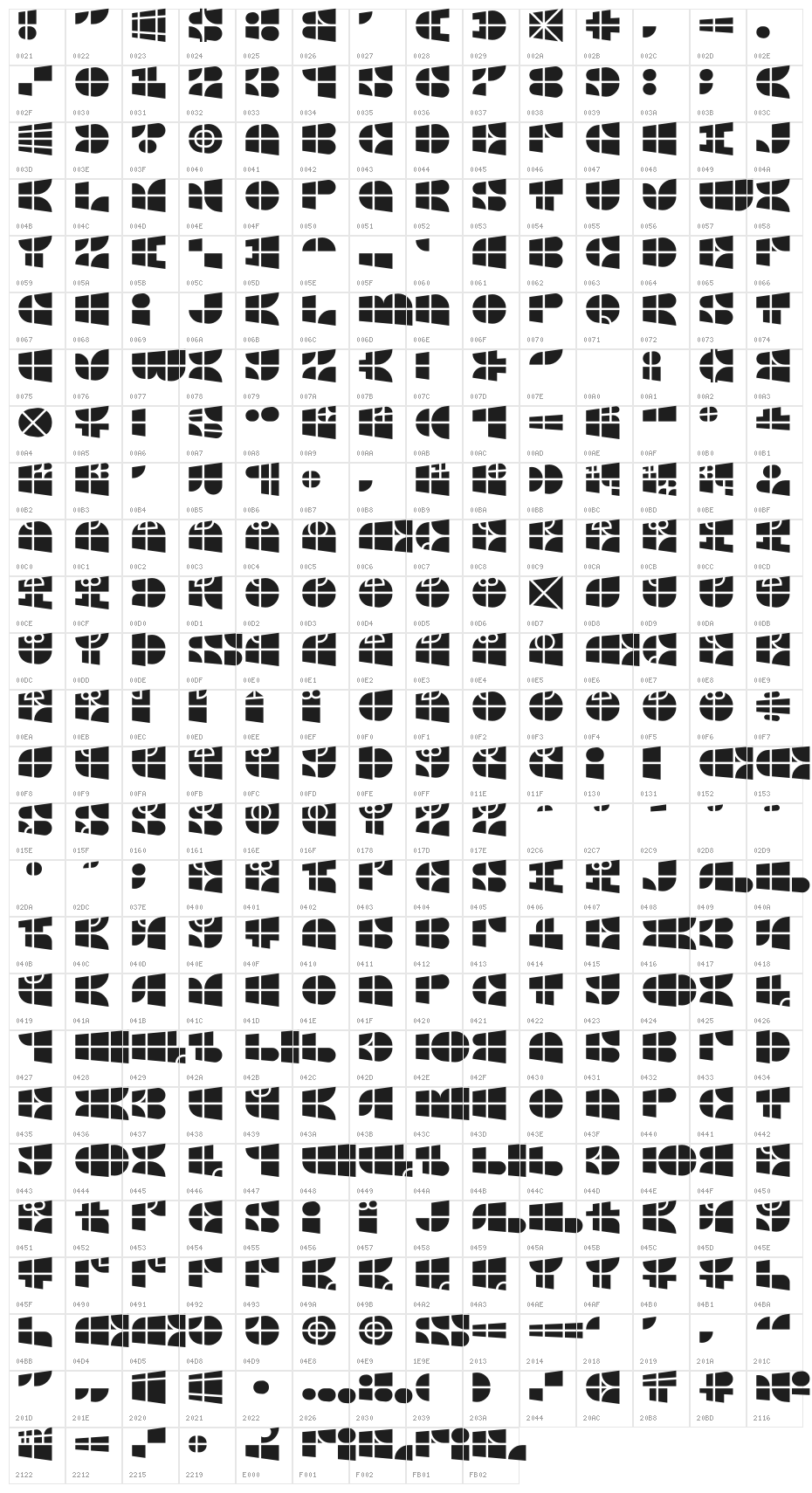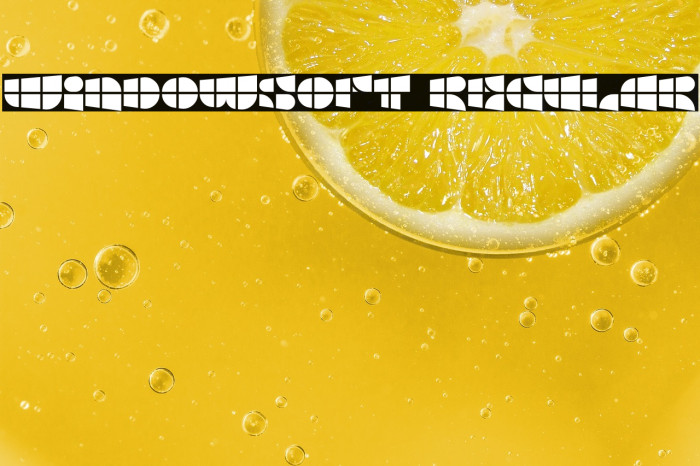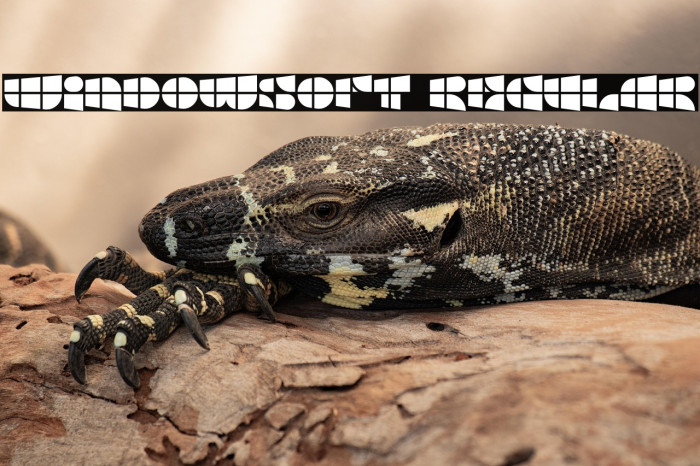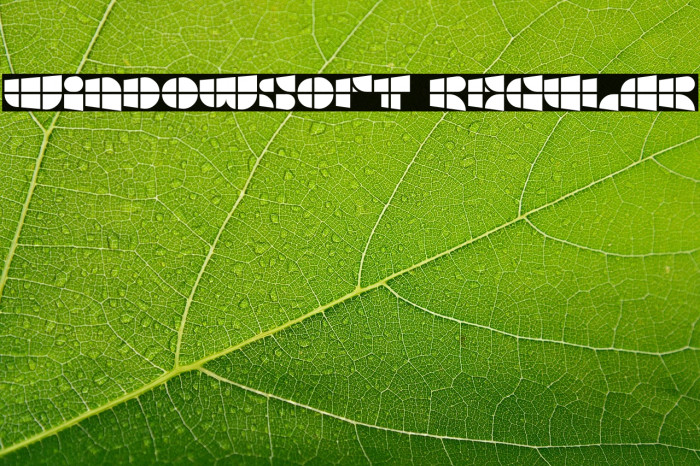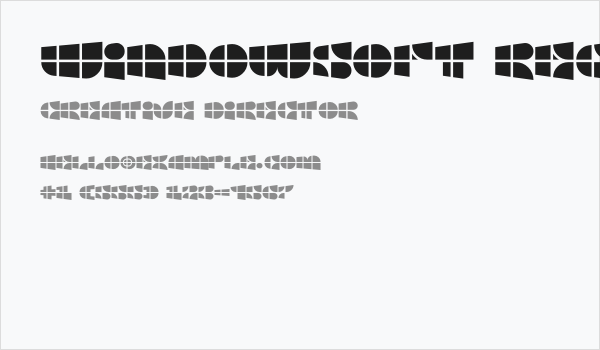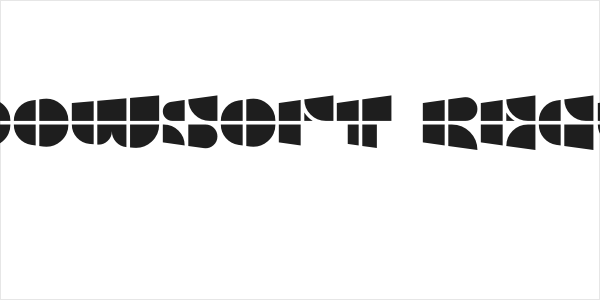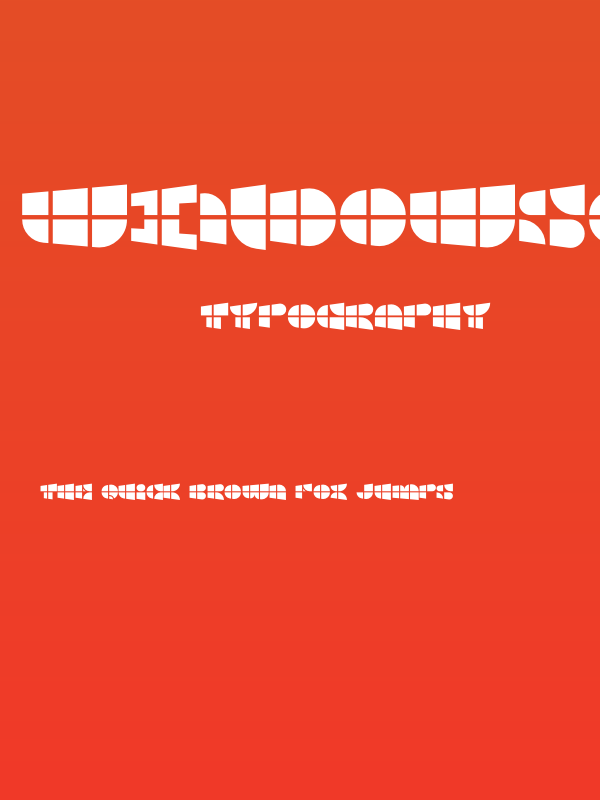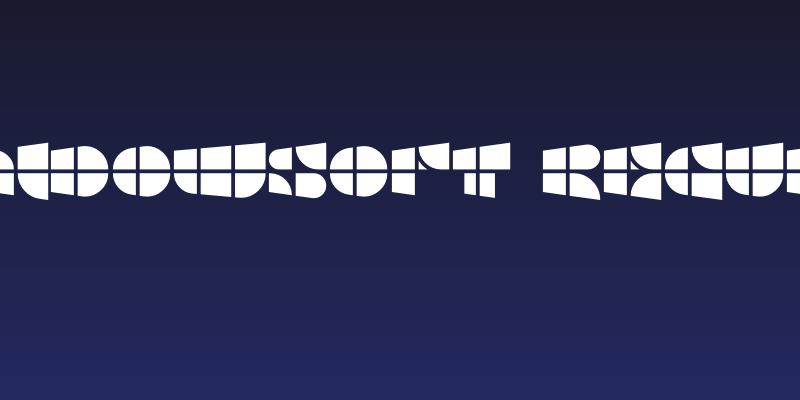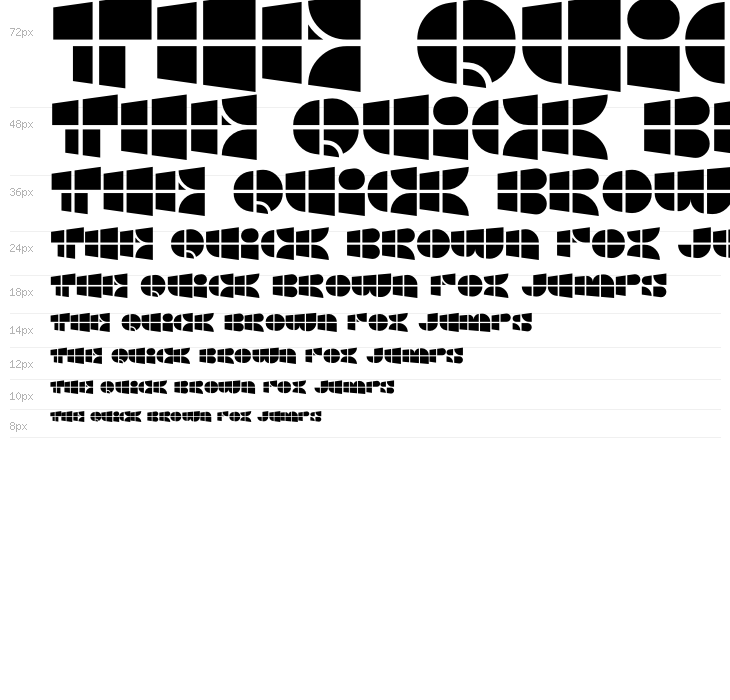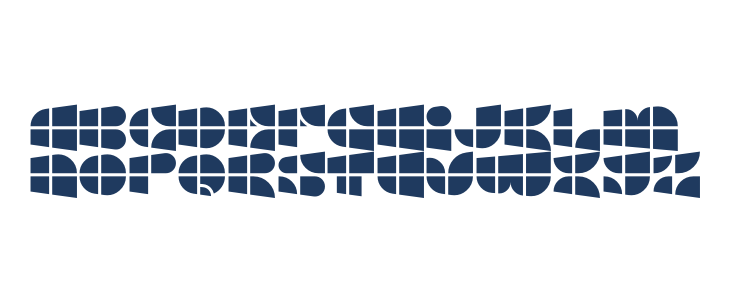
Windowsoft Regular Font
Windowsoft Regular Description
This font features a highly geometric and abstract design, characterized by its use of bold, block-like shapes that form each letter and number. The characters are constructed from a series of intersecting lines and curves, creating a unique, futuristic appearance. The font's style is reminiscent of digital or technological themes, with a strong emphasis on symmetry and balance. Each character is distinct yet cohesive, maintaining a consistent visual rhythm throughout the set. The use of negative space is prominent, adding to the font's modern and innovative feel.
| Proposed Projects | Ideal for technology branding, digital art projects, modern posters, and innovative product packaging. |